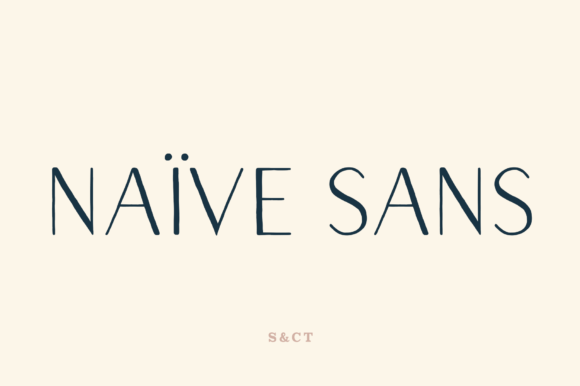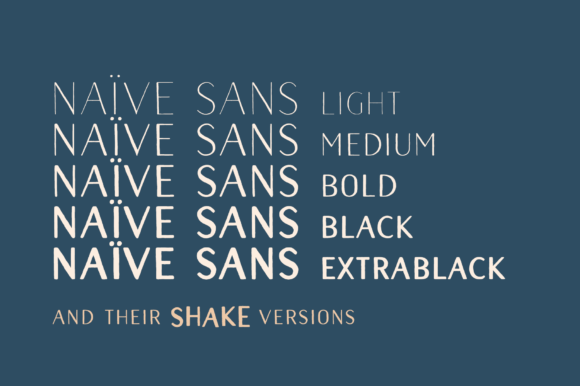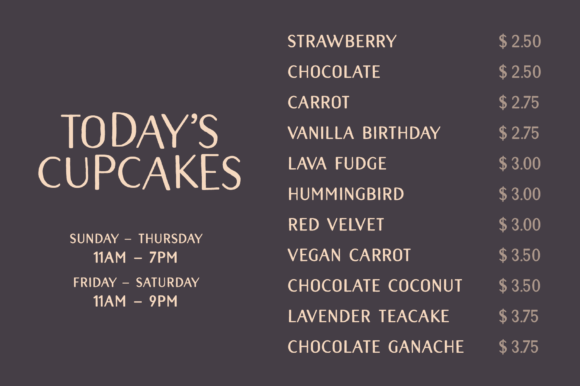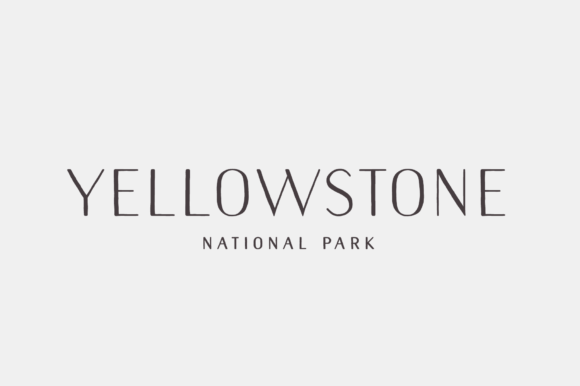
Naive Sans Shake Font
About the Naive Sans Shake Font
Introducing the Naive Sans Shake Font, a beautifully crafted typeface designed to elevate your creative projects. Naïve Sans is a sans serif handwritten font designed in Paris. Our goal was to draw a font with finely irregular lines that give a human and whimsical feeling.
We drew five finely balanced weights to assure a good readability whatever the size, with contrasting upstrokes and downstrokes to add an unusual, fancy touch. We also designed five shaked versions with different lowercase and uppercases, to improve your designs and bring a more organic and playful feeling. Mixed or not, both styles can be used for various purposes, such as headings, logos, posters, wedding invitations…
This font is part of our Naïve superfamily that contains lot of variations: Line, Inline, Serif, Sans Serif, and a special Art Deco one.
Naive Sans Shake Font Usage Examples
Naive Sans Shake Font Example